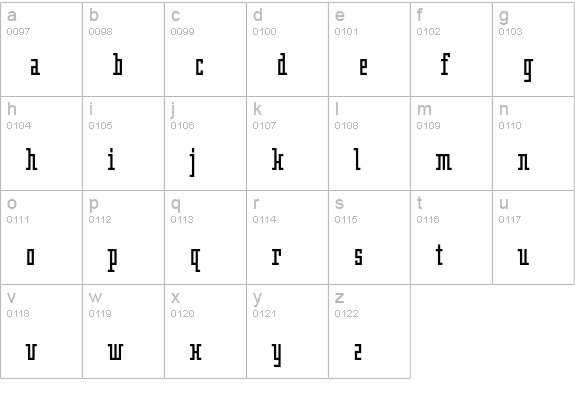
Oblong Font Details
The Oblong font is a modern and stylish typeface that exudes sophistication and creativity. Its sleek and elongated letterforms make a bold statement while maintaining an elegant and refined look. Perfect for adding a touch of sophistication to any design project, Oblong font is versatile and can be used for a wide range of applications. Best of all, this stunning font is completely free for you to download at FontsMarket.com! Whether you're working on a branding project, creating eye-catching graphics, or designing a beautiful website, Oblong font is sure to elevate your work to the next level. Don't miss out on this amazing opportunity to enhance your designs with the sleek and stylish Oblong font - download it today for free!